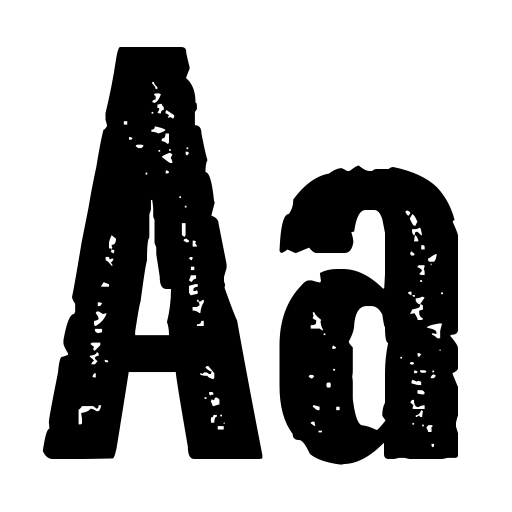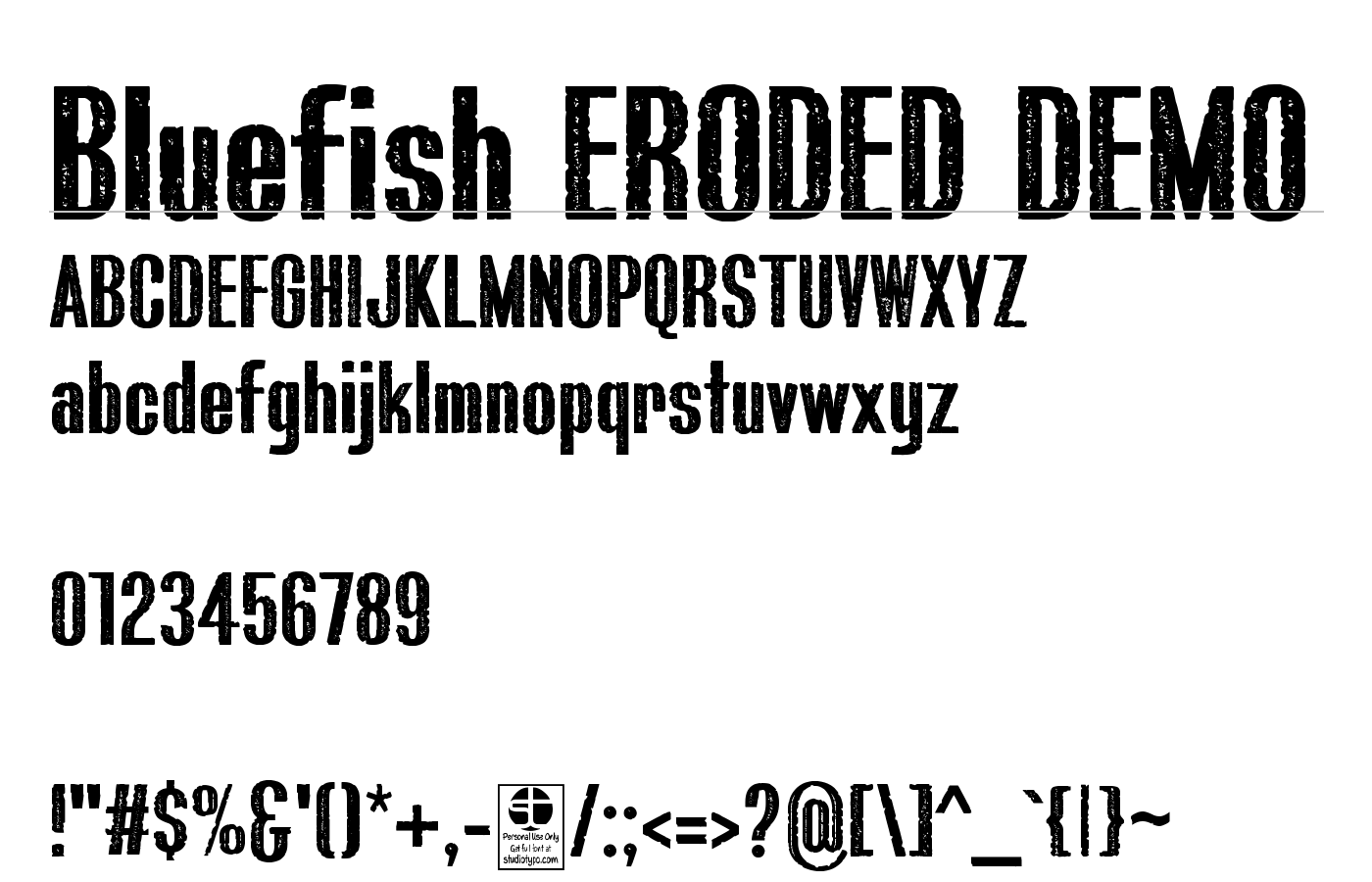
Bluefish ERODED DEMO is a bold, condensed sans-serif font with a distressed, weathered texture that gives it an edgy, rugged feel. Its tall, narrow letterforms and rough, eroded edges make it perfect for creating striking headlines or vintage-inspired designs that need a strong, worn-in character. This font works well for posters, logos, and branding that aim to convey toughness, authenticity, and a gritty aesthetic.
Bluefish ERODED DEMO Font
About Bluefish ERODED DEMO Font